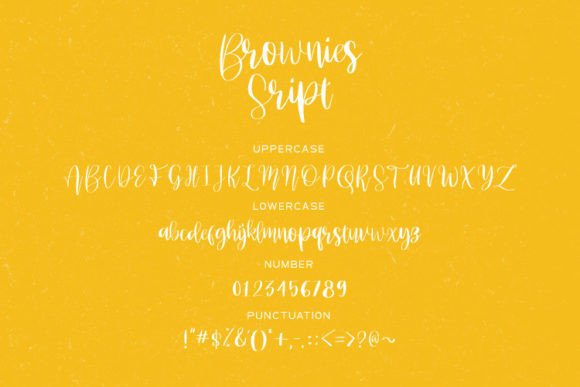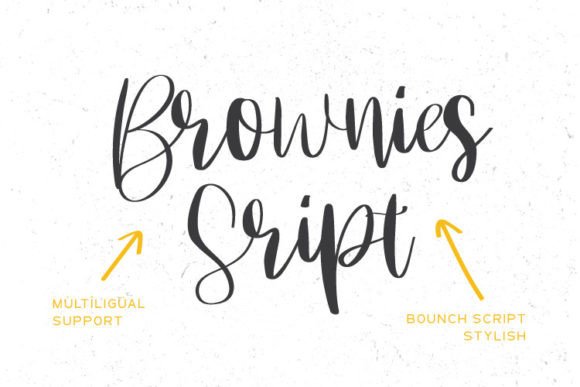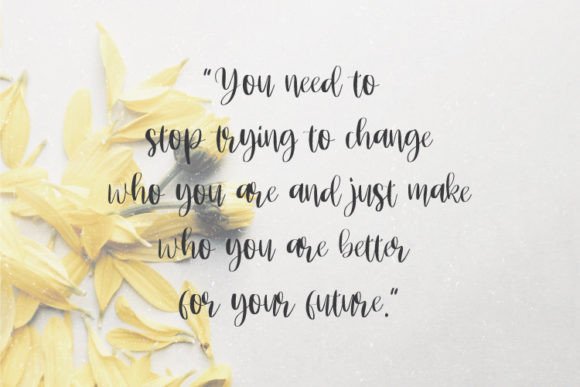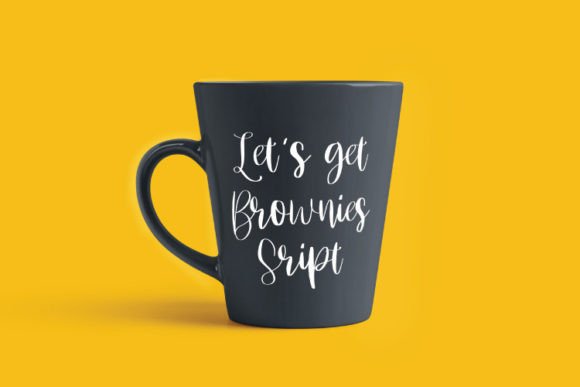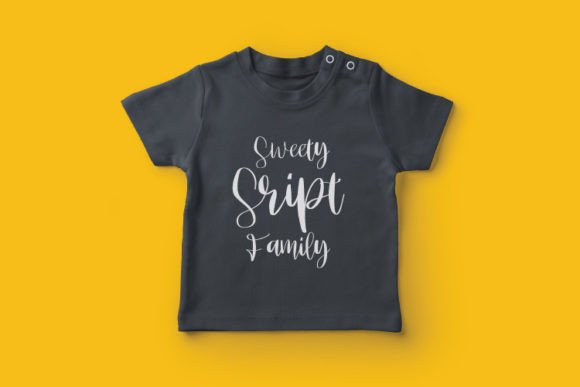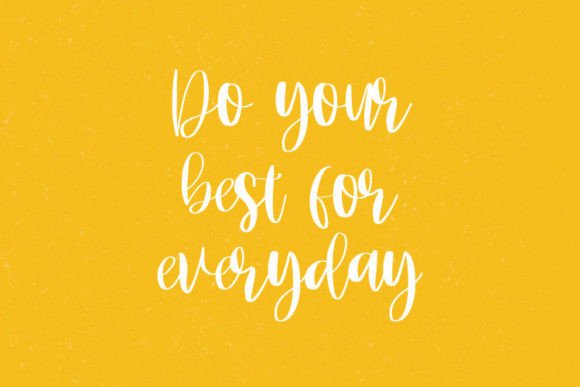
About Brownies Script Font
A Perfect Blend of Charm and Elegance
The Brownies Script font download brings together graceful strokes and a natural handwritten flow, making it a stylish addition to any creative collection. Whether you’re crafting for print or digital platforms, this font adds a soft and personal touch.
Ideal for Weddings and Elegant Designs
This font shines in romantic and classy settings. Use Brownies Script to enhance:
Wedding invitations and thank you cards
Greeting cards and quotes
Logo designs and branding projects
Business cards and stationery
Its fluid style and carefully crafted details offer a timeless quality that feels both refined and heartfelt.
Handcrafted and Versatile
Brownies Script is designed with versatility in mind. It fits seamlessly into formal projects and casual layouts alike. The font’s smooth curves and legibility ensure your message is always beautifully delivered.